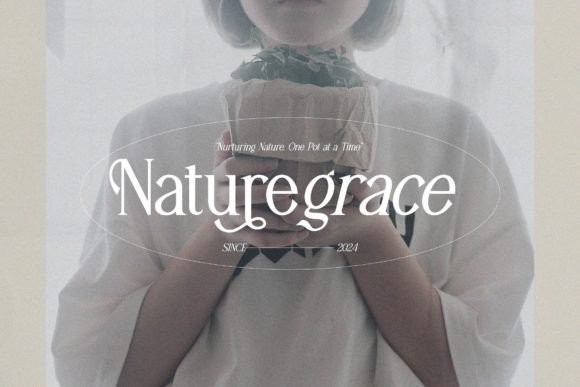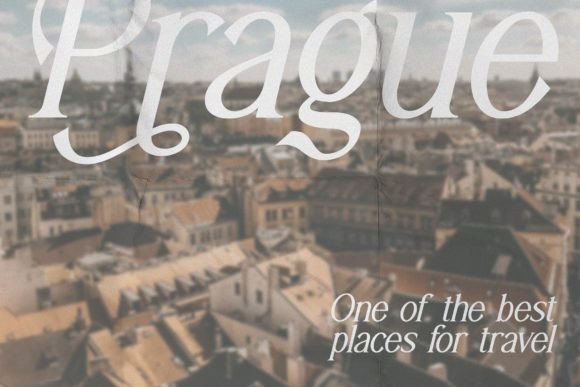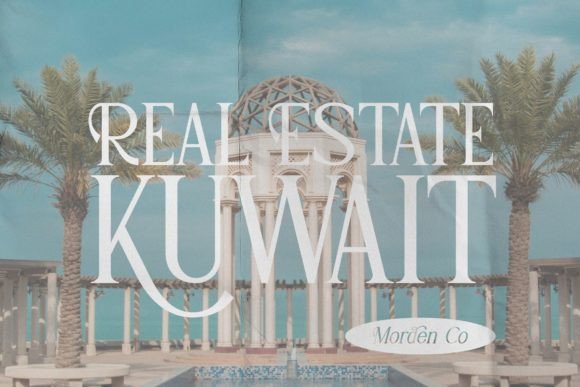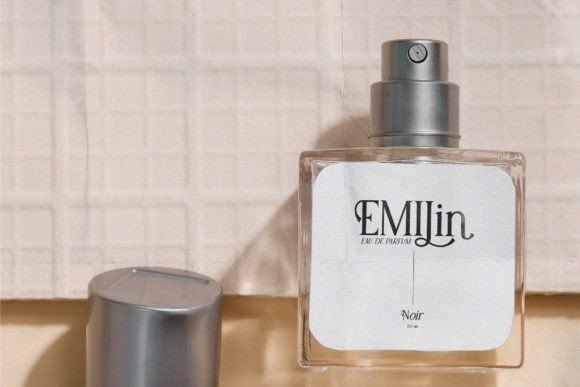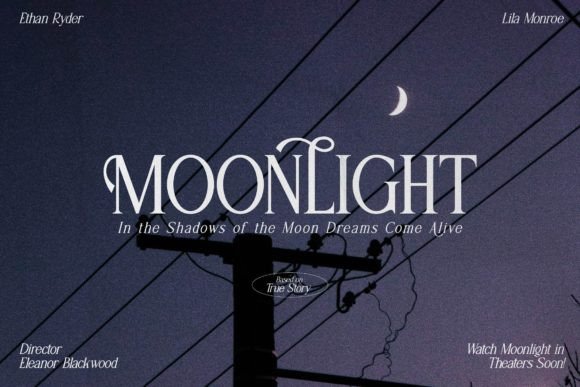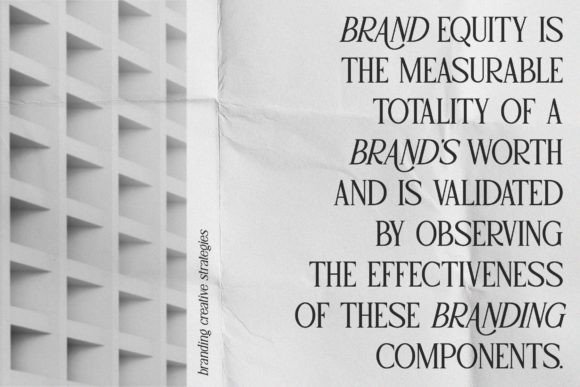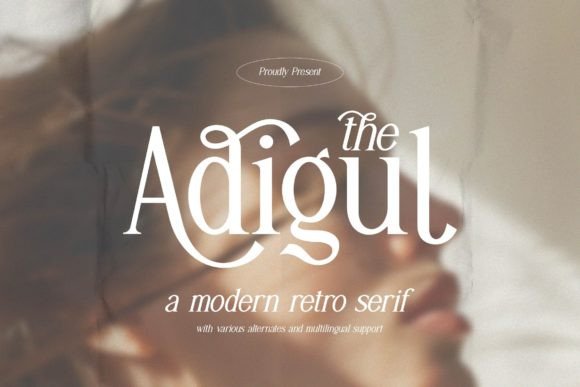
Introducing Adigul Font: The Modern Serif for Creative Projects
Are you a designer or crafter looking for a versatile and stylish font to elevate your projects? Look no further than Adigul Font, a modern serif font perfect for a wide range of applications. From logos and branding projects to homeware designs, product packaging, and more, Adigul Font is the ideal choice for adding a touch of sophistication and elegance to your work.
What is Adigul Font?
Adigul Font is a modern serif font designed to meet the needs of creative professionals and crafters. Its clean lines, classic serif details, and versatile style make it suitable for a wide range of projects, including logos, branding projects, homeware designs, product packaging, mugs, quotes, posters, shopping bags, t-shirts, book covers, name cards, invitation cards, greeting cards, labels, photography, watermarks, and special events.
Key Features of Adigul Font
- Modern Serif Style: Adigul Font boasts a modern serif style that adds a touch of sophistication and elegance to any project.
- Versatile: Adigul Font is suitable for a wide range of projects, from logos and branding projects to homeware designs, product packaging, and more.
Benefits of Using Adigul Font
So, why choose Adigul Font for your projects? Here are just a few benefits of using this versatile font:
- Elevate Your Brand: With Adigul Font, you can add a touch of sophistication and elegance to your brand, helping to establish a strong visual identity.
- Stand Out from the Crowd: This modern serif font is sure to help your project stand out from the crowd, whether you’re designing a logo, brochure, or product packaging.
- Save Time: With its PUA encoding and easy-to-use features, Adigul Font can save you time and hassle, allowing you to focus on the creative aspects of your project.
- Endless Possibilities: From logos and branding projects to homeware designs, product packaging, and more, Adigul Font offers endless possibilities for creative expression.
Examples of Adigul Font in Action
Adigul Font is a versatile font that can be used in a wide range of projects. Here are a few examples of how it can be used:
- Logo Design: Use Adigul Font to create a sophisticated and elegant logo for your brand.
- Branding Projects: This font is perfect for branding projects, including brochures, business cards, and letterheads.
- Homeware Designs: Add a touch of elegance to your homeware designs, including product packaging, labels, and more.
- Product Packaging: Use Adigul Font to create eye-catching product packaging that stands out on store shelves.
In conclusion, Adigul Font is a versatile and stylish modern serif font perfect for a wide range of creative projects. With its PUA encoding, easy-to-use features, and endless possibilities for creative expression, this font is a must-have for designers and crafters. Whether you’re looking to elevate your brand, stand out from the crowd, or simply add a touch of sophistication to your project, Adigul Font is the ideal choice.